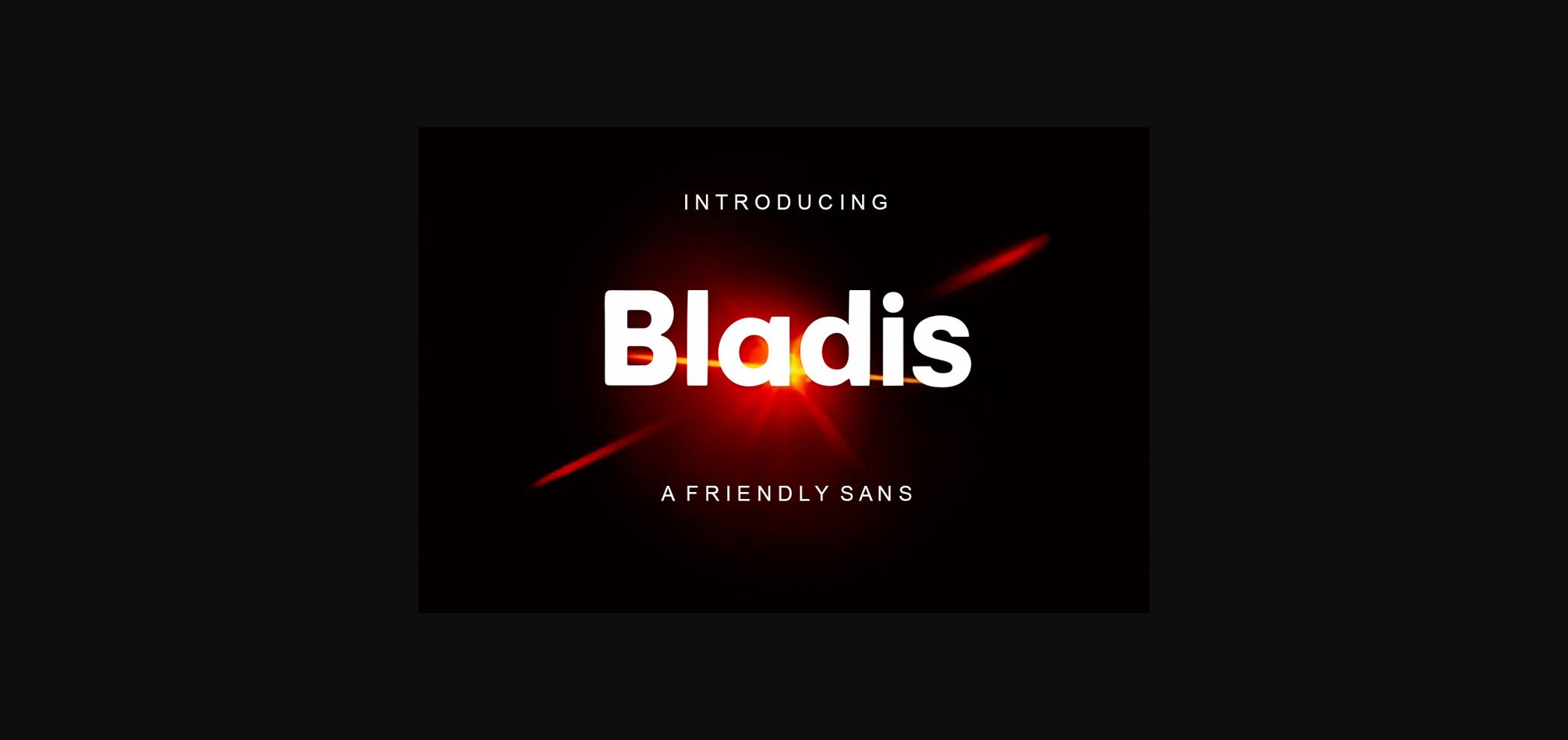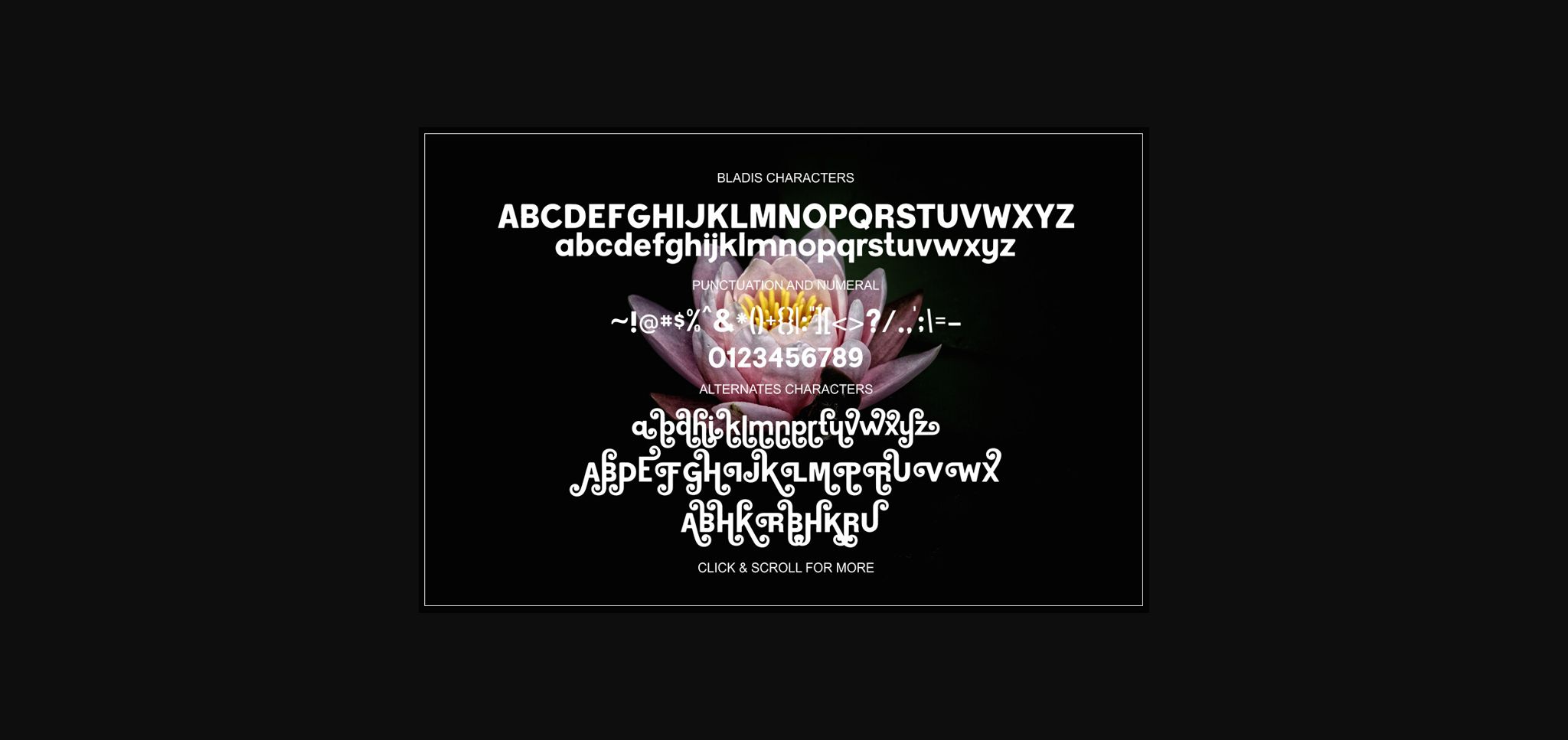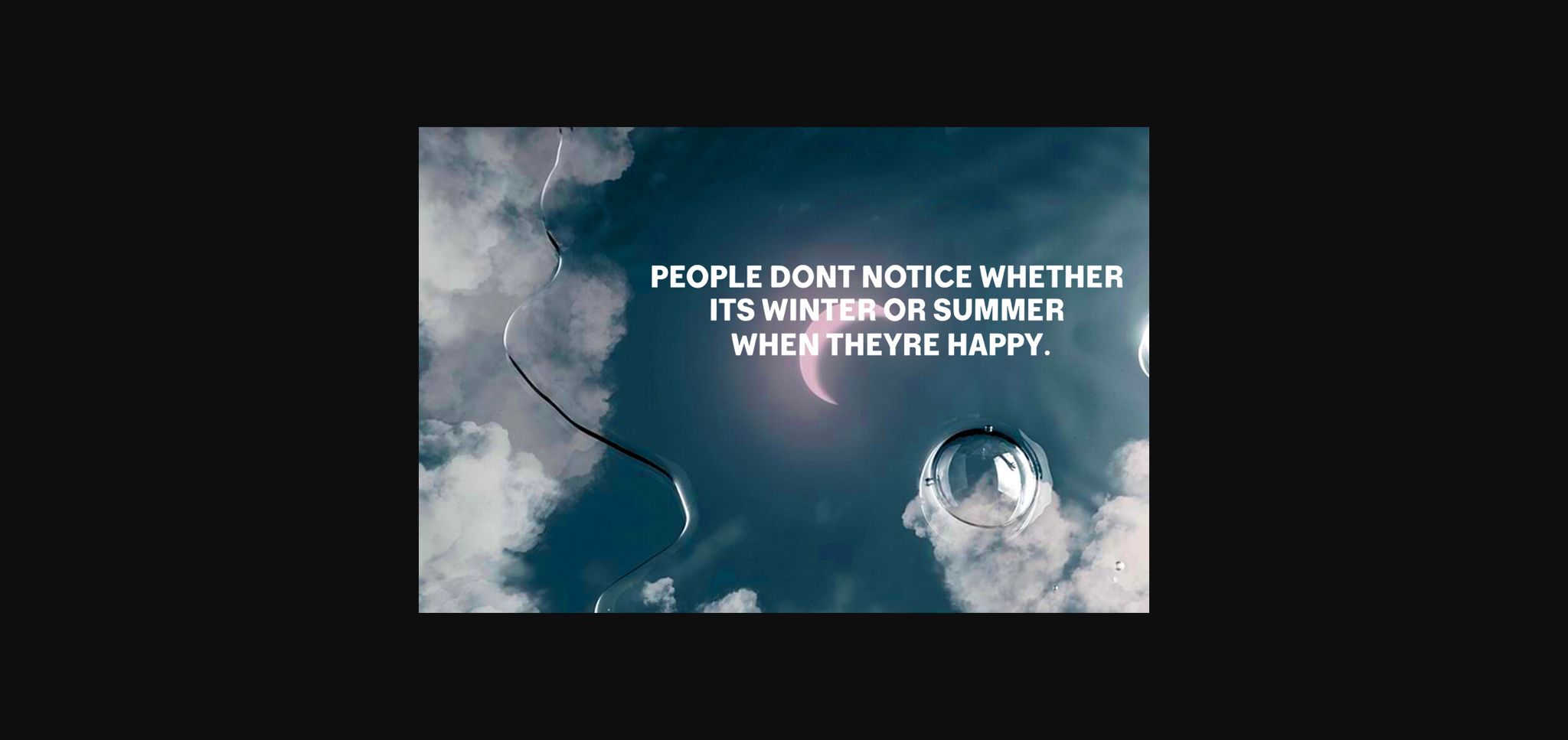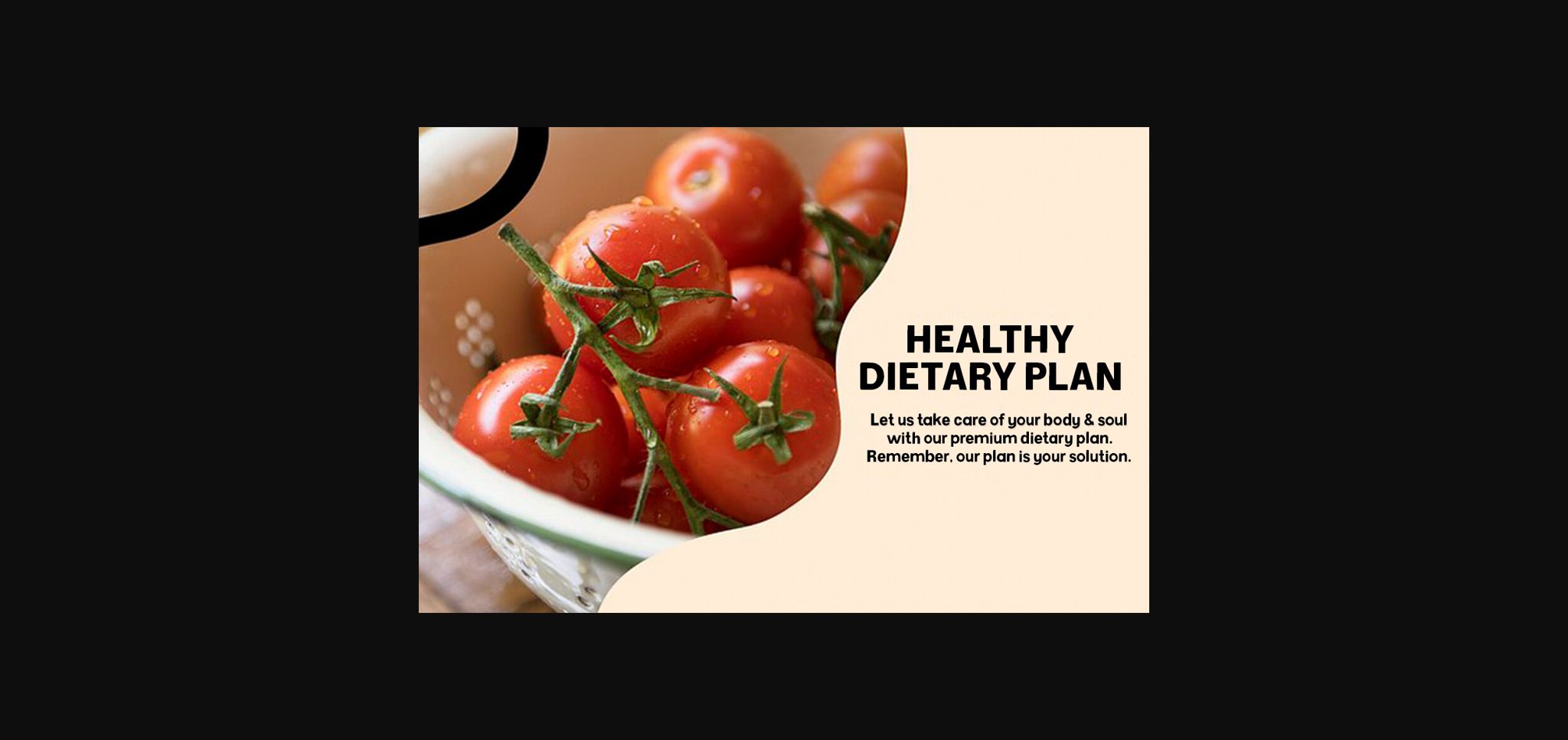
About Bladis Font
Bladis is a modern elegant typeface with a collection of stylistic alternates and ligatures. Bladis has a combination of clean, medium lines and smooth curves, so it will work nicely with beauty or fashion themes.